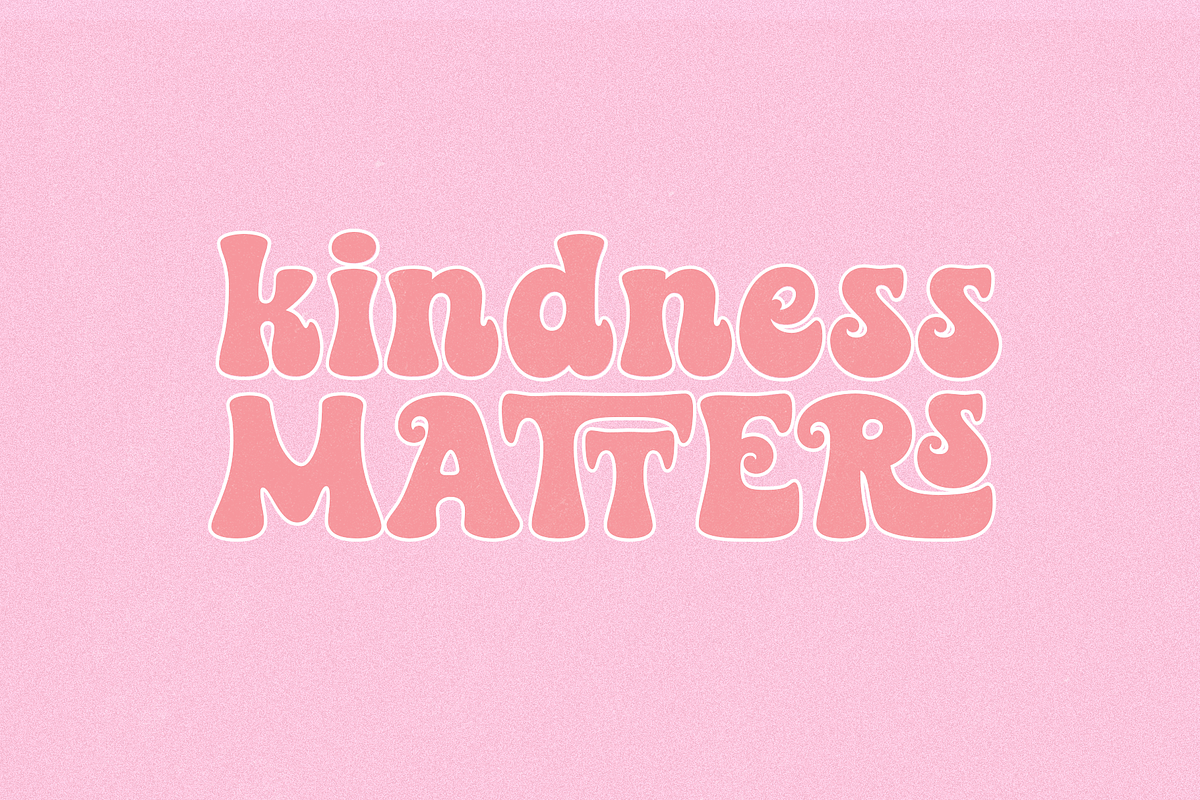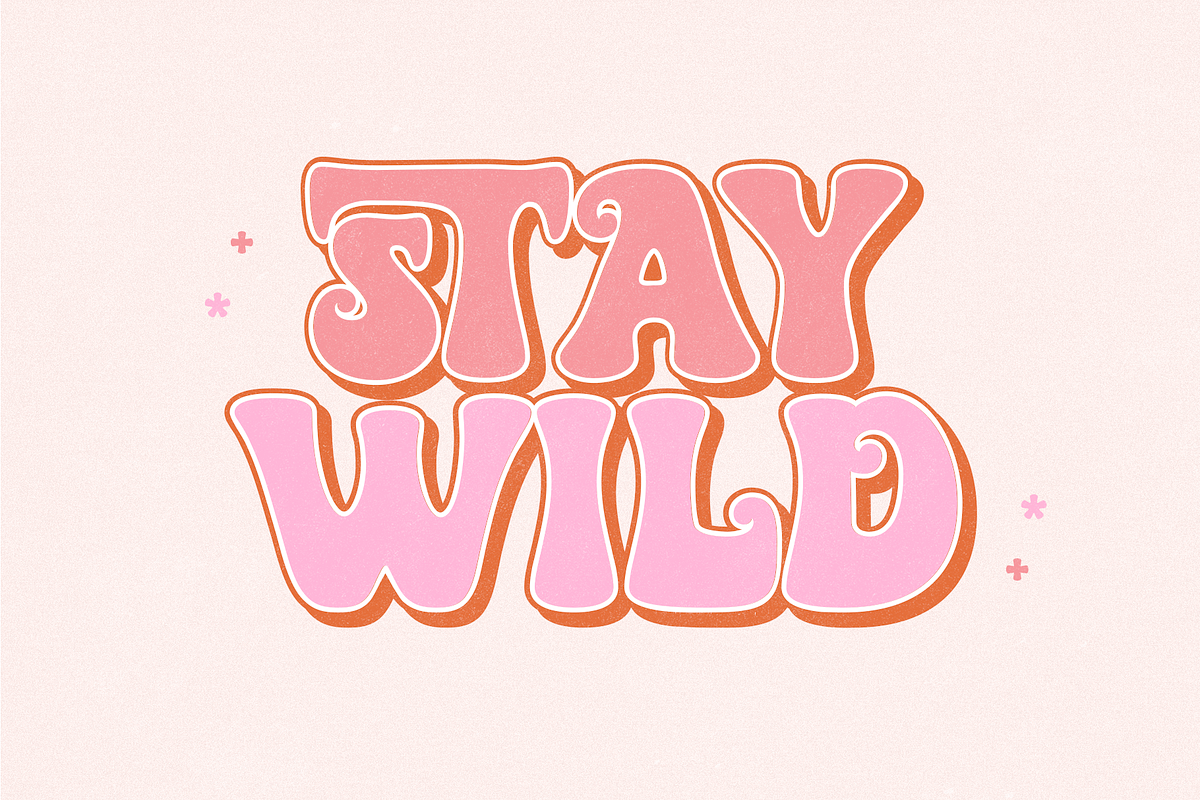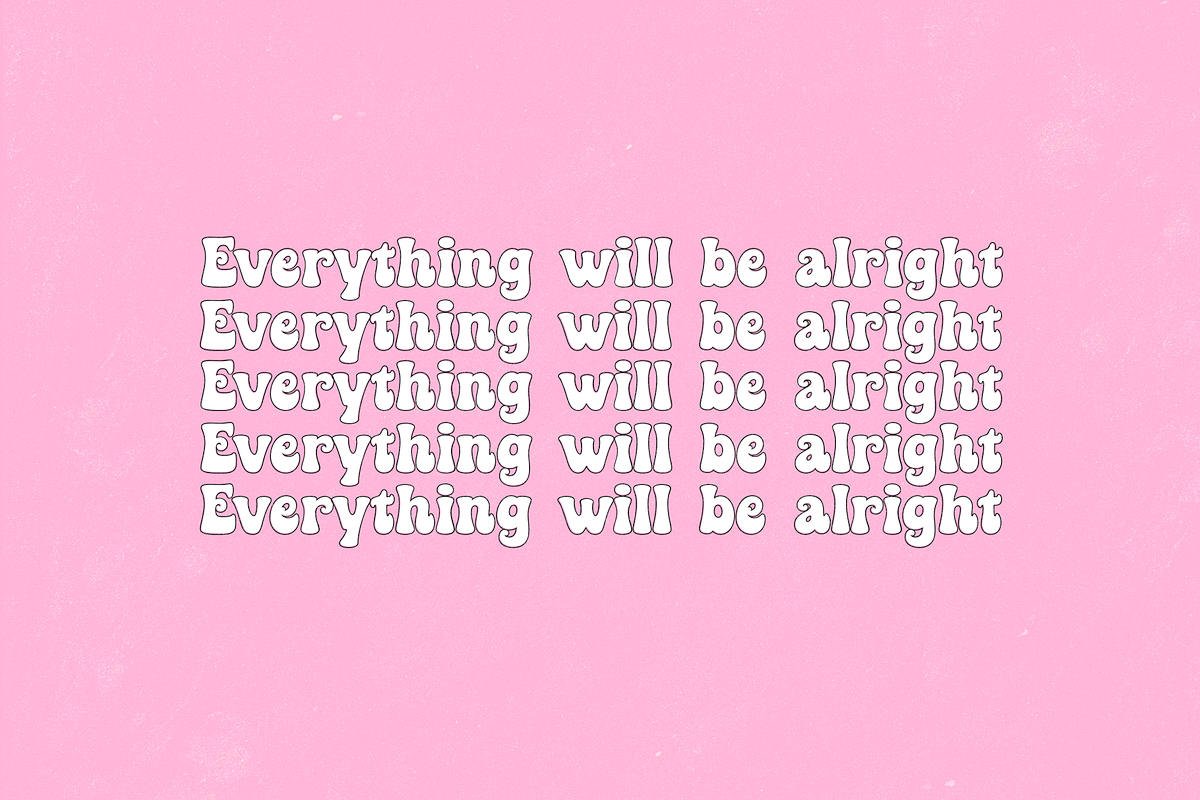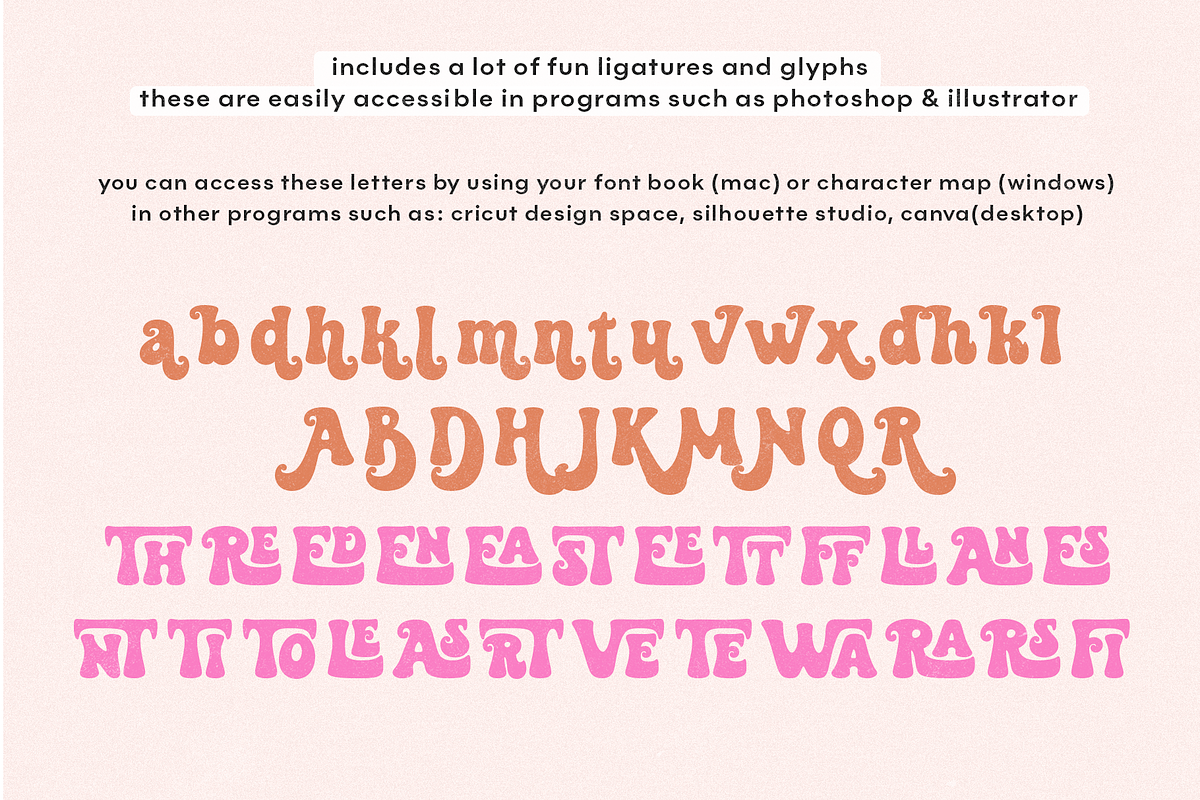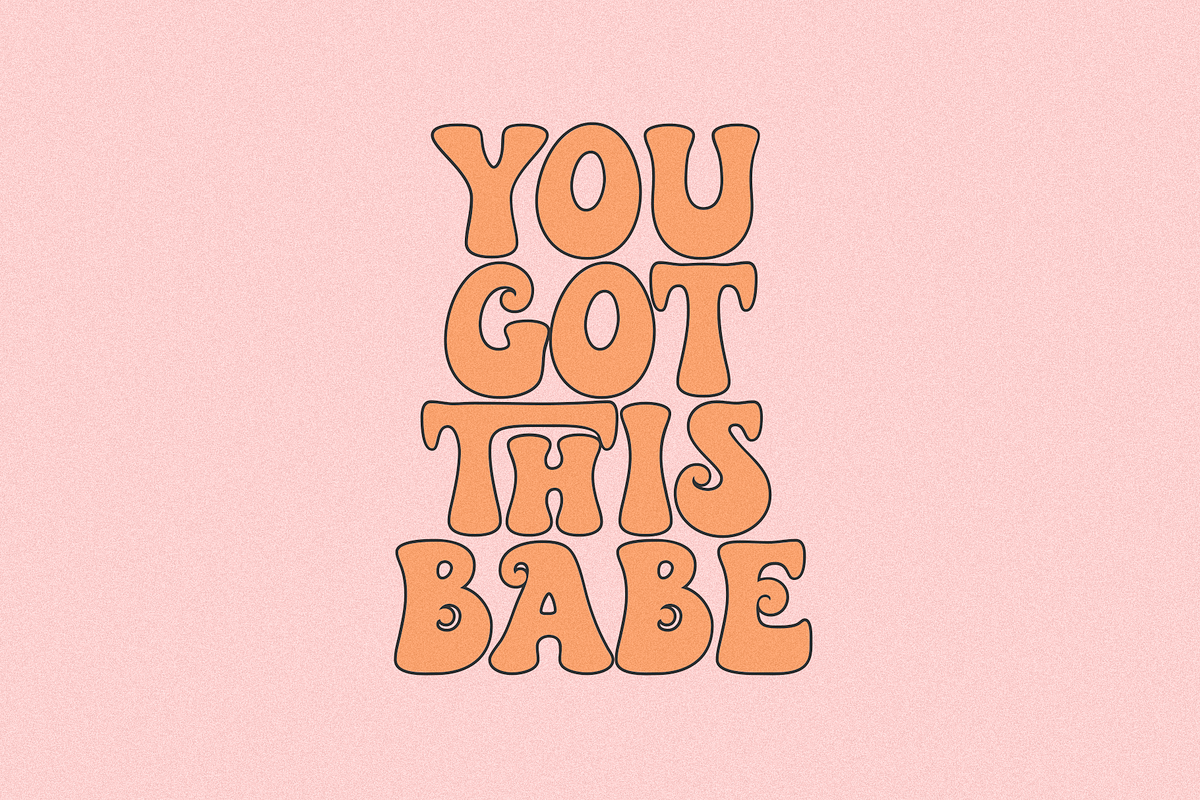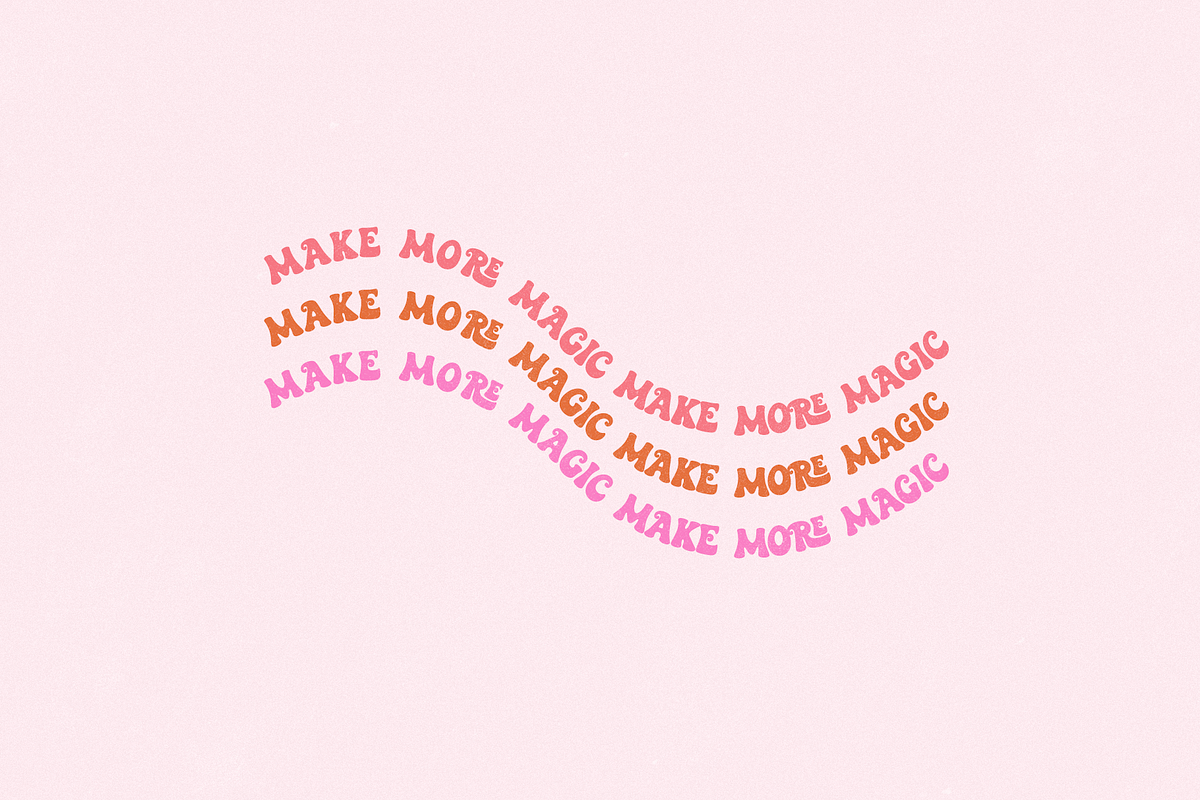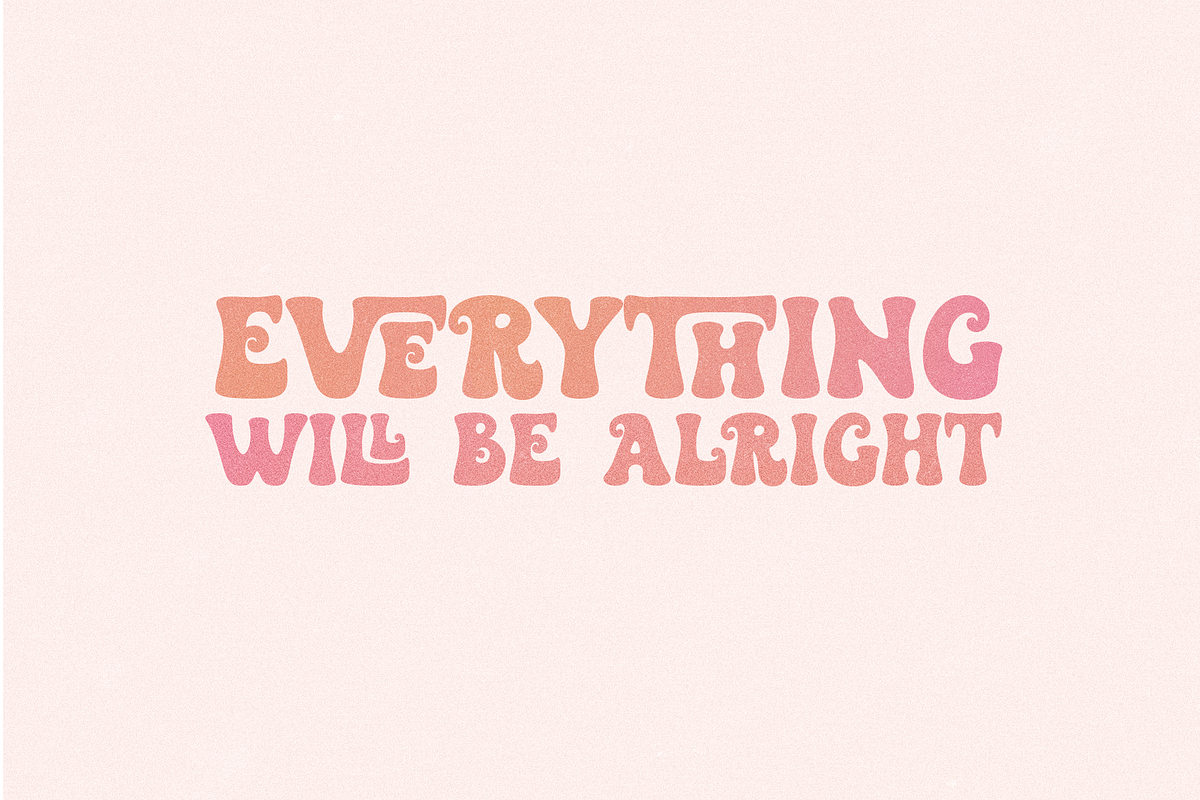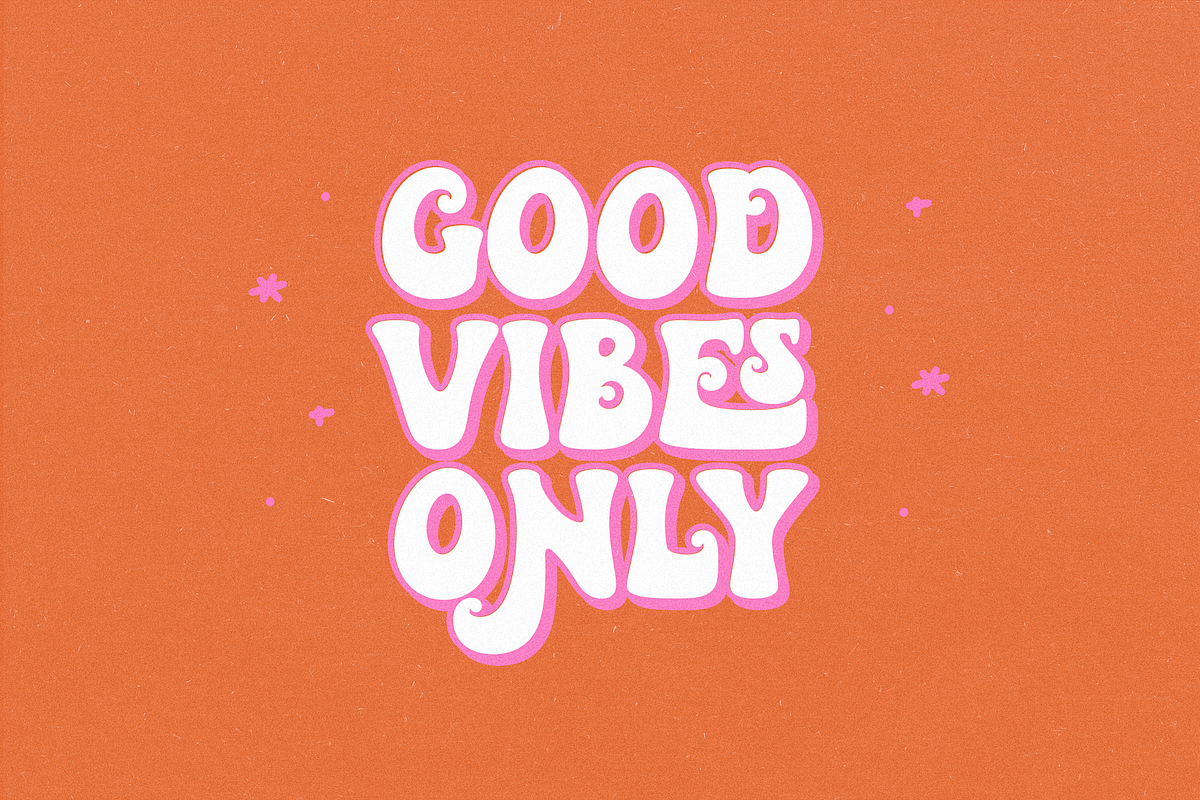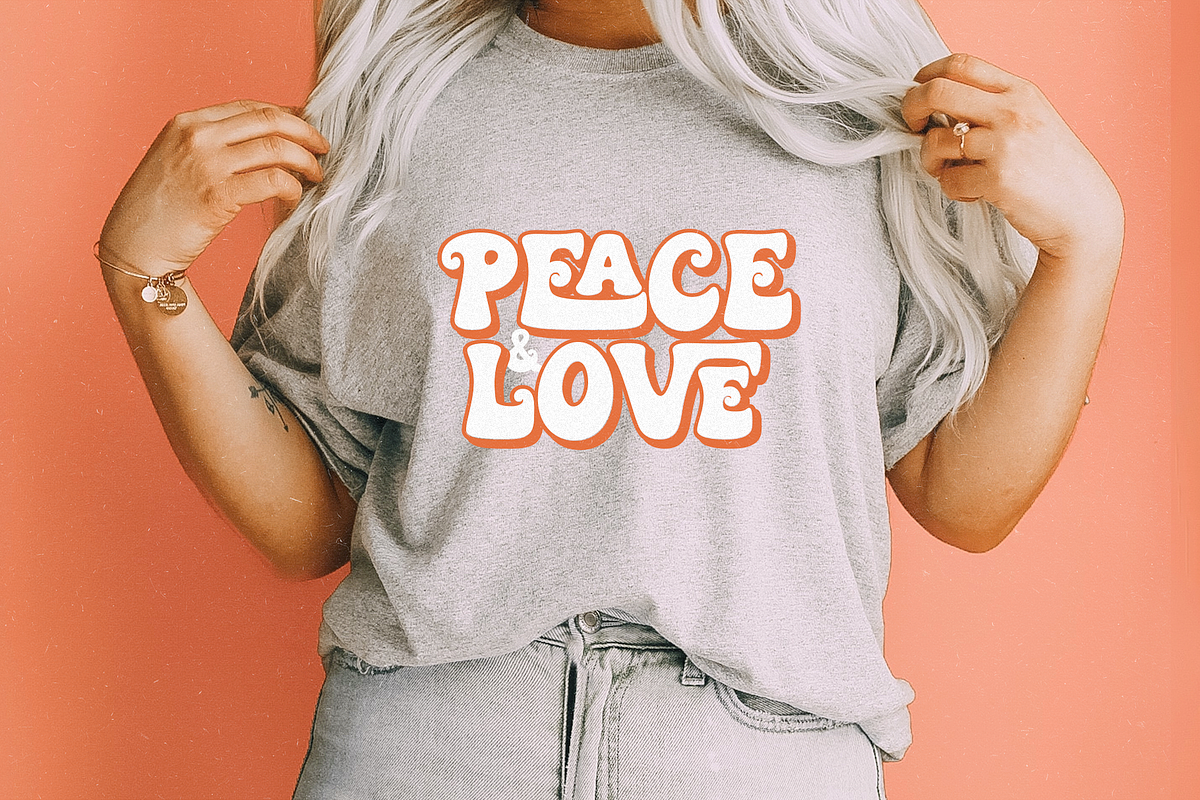
Limited Edition | Retro Font
Limited Edition is a retro font with three styles.
This font comes with a regular solid version, an outline and a shadow effect. These three fonts work together to layer your perfect vintage design!
Limited Edition is perfect for branding, logos, social media quotes, stickers, posters, vintage designs, wall art and more!